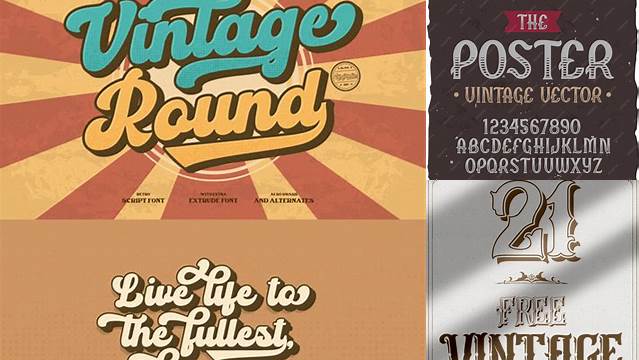
Free Vintage Poster Fonts: Download Now!
Hey guys! Are you on the hunt for some awesome free vintage poster fonts? You've come to the right place! We all know that the right font can make or break a design, especially when you're aiming for that classic, retro vibe. In this article, we're diving deep into the world of vintage poster fonts, exploring everything from where to find them to how to use them effectively. So, buckle up and let's get started!
1. What are Vintage Poster Fonts?
Vintage poster fonts, simply put, are typefaces that evoke a sense of nostalgia and the aesthetic of past eras. Think about the bold, eye-catching fonts used in old movie posters, advertisements, and even product labels from the early to mid-20th century. These fonts often feature unique characteristics like serifs, strong letterforms, and a distinct personality that sets them apart from more modern typefaces. The charm of vintage poster fonts lies in their ability to instantly transport your designs back in time, giving them a timeless and authentic feel. Whether you're working on a poster, a logo, or any design project that needs a touch of retro flair, understanding what defines a vintage poster font is the first step in making the right choice.
These fonts are not just about looking old; they're about telling a story. They carry with them the weight of history, the echoes of past design trends, and the spirit of the eras they represent. When you use a vintage poster font, you're not just choosing a typeface; you're choosing a piece of visual history. This is why they are so effective in creating designs that resonate with audiences on an emotional level, connecting them to a sense of nostalgia and familiarity. The best vintage fonts often have a hand-crafted feel, reflecting the pre-digital era when typography was a highly skilled art form.
To truly appreciate the appeal of vintage poster fonts, consider the context in which they were originally used. Many of these fonts were designed for specific purposes, such as grabbing attention from a distance or conveying a particular mood or message. This means that each font has its own unique personality and strengths, making it crucial to choose the right one for your project. For example, a bold, sans-serif font might be perfect for a vintage-style movie poster, while a more elegant, serif font might be better suited for a retro-inspired wedding invitation. Understanding these nuances will help you use vintage poster fonts effectively and create designs that truly stand out.
2. Why Use Free Vintage Poster Fonts?
Why should you even bother with free vintage poster fonts? Well, for starters, they add a unique and timeless aesthetic to your designs. In a world saturated with modern, sleek fonts, vintage typefaces offer a refreshing contrast. They instantly inject character and personality, making your work stand out from the crowd. Plus, let's be honest, who doesn't love a good dose of nostalgia? Vintage fonts have a way of connecting with people on an emotional level, evoking feelings of familiarity and warmth. But beyond aesthetics, there are practical reasons to use free options. They're cost-effective, especially if you're on a tight budget. And the internet is brimming with high-quality free vintage fonts, so you don't have to compromise on style.
Another compelling reason to use free vintage poster fonts is the sheer variety available. You can find fonts that mimic everything from the Art Deco era to mid-century modern designs. This diversity allows you to experiment with different styles and find the perfect fit for your project. Whether you're designing a poster, a logo, or even a website, a vintage font can add that special touch that elevates your work. The key is to choose a font that not only looks good but also aligns with the overall message and tone of your design. A well-chosen vintage font can communicate your brand's history, values, and personality in a subtle yet powerful way.
Moreover, using free resources can be a fantastic way to hone your design skills. With so many options at your fingertips, you can try out different combinations and learn what works best. This experimentation can lead to unexpected discoveries and help you develop your own unique style. Remember, design is all about pushing boundaries and trying new things, and free vintage poster fonts provide the perfect playground for creative exploration. Just be sure to always check the licensing terms before using any font, ensuring it's suitable for your intended purpose. This will save you from potential legal headaches down the road and allow you to use your fonts with confidence.
3. Where to Find Free Vintage Poster Fonts Online
The internet is a treasure trove when it comes to finding free vintage poster fonts. But with so many websites out there, it can be overwhelming to know where to start. Some popular resources include Font Squirrel, which offers a curated selection of high-quality fonts that are free for commercial use. DaFont is another go-to, with a massive library of fonts, including plenty of vintage options. Google Fonts is also a fantastic resource, especially if you're looking for fonts that are web-friendly. And don't forget about sites like Behance and Dribbble, where designers often share their own creations, including free fonts. The key is to explore different sites and use keywords like "vintage," "retro," and "classic" in your searches to narrow down your options.
When searching for free vintage poster fonts, it's important to keep in mind the licensing terms. Not all fonts are free for commercial use, so always double-check the fine print before incorporating a font into your project. Most websites will clearly state the licensing information, but it's always better to be safe than sorry. Another tip is to read reviews and comments from other users. This can give you valuable insights into the quality and usability of a font. A font might look great in the preview image, but it's always good to know if others have had a positive experience using it in real-world projects. Pay attention to details like readability, kerning, and overall aesthetic appeal.
Finally, don't be afraid to dig a little deeper and explore niche websites and design blogs. Many independent designers and foundries offer free vintage poster fonts as a way to promote their work. These hidden gems can often provide unique and distinctive fonts that you won't find anywhere else. You can also join online design communities and forums, where members often share their favorite resources and recommendations. Networking with other designers can be a great way to discover new fonts and expand your creative toolkit. Remember, the best way to find the perfect vintage font is to be patient, persistent, and willing to explore all the options available to you.
4. Top Websites for Free Vintage Fonts
Let's dive a little deeper into some of the top websites for free vintage fonts, shall we? As mentioned before, Font Squirrel is a fantastic resource. They pride themselves on offering fonts that are 100% free for commercial use, which is a huge plus. Their selection is carefully curated, so you can trust that you're getting high-quality typefaces. DaFont, on the other hand, is a behemoth, with thousands of fonts to choose from. While not all fonts on DaFont are free for commercial use, there's still a vast collection of vintage options available. Google Fonts is another winner, especially if you're working on web projects. Their fonts are optimized for the web and easy to embed in your website.
Another great website to explore is Behance. While it's primarily a platform for designers to showcase their work, many designers also offer free vintage poster fonts as a way to give back to the community. You can often find unique and original fonts on Behance that you won't find anywhere else. Dribbble is another similar platform, where designers share their creations and resources. Creative Market is also worth checking out, although it's primarily a marketplace for premium fonts and design assets, they often have freebies available, including vintage fonts. Sign up for their newsletter to stay informed about their latest free offerings. The key is to diversify your search and explore multiple websites to find the perfect font for your project.
In addition to these popular websites, there are also many smaller, niche sites that specialize in vintage fonts. Websites like MyFonts and HypeForType often have curated collections of free vintage poster fonts, although they also offer premium options. These sites can be a great way to discover hidden gems and unique typefaces that you won't find on the larger platforms. Remember, the best approach is to be thorough and persistent in your search. Don't settle for the first font you find; take the time to explore different options and find the one that truly captures the essence of your design. And always, always double-check the licensing terms before using a font in a commercial project.
5. Popular Free Vintage Poster Fonts You Should Know
Okay, so now you know where to find free vintage poster fonts, but what about which ones to look for? There are some real classics out there that every designer should have in their toolkit. One popular choice is Bebas Neue, a clean and versatile sans-serif font that works well for headlines and posters. Another favorite is Oswald, a condensed sans-serif that has a slightly vintage feel. For something with a bit more character, check out Montserrat, a geometric sans-serif that's inspired by early 20th-century urban typography. And if you're looking for a good serif option, Playfair Display is a beautiful choice, with its elegant letterforms and classic feel.
In addition to these well-known fonts, there are also many hidden gems to discover. Consider fonts like League Gothic, a bold and impactful sans-serif that's perfect for vintage-style posters and advertisements. Another standout is Raleway, an elegant sans-serif with a distinctive "W" that adds a touch of sophistication. For a more playful and whimsical feel, try Pacifico, a script font that evokes the spirit of 1950s surf culture. And if you're looking for a font with a hand-drawn feel, check out Amatic SC, a condensed sans-serif that's perfect for adding a personal touch to your designs. These popular free vintage poster fonts offer a great starting point for your vintage design projects.
When choosing a free vintage poster font, it's important to consider the overall style and message you want to convey. A bold and impactful font like League Gothic might be perfect for a vintage-style movie poster, while a more elegant font like Playfair Display might be better suited for a retro-inspired wedding invitation. Think about the era you're trying to evoke and choose a font that aligns with that aesthetic. Experiment with different combinations and don't be afraid to try something new. The best way to find the perfect font is to play around and see what works best for your project. And remember, the most important thing is to choose a font that you love and that inspires you.
6. How to Identify a True Vintage Font
So, how do you actually spot a true vintage font? It's not always as simple as slapping the "vintage" label on any old typeface. True vintage fonts often have specific characteristics that set them apart. Look for details like strong serifs, unique letterforms, and a handcrafted feel. Fonts from the Art Deco era, for example, tend to be geometric and stylized, while fonts from the mid-century modern period often have a clean and minimalist aesthetic. Consider the overall weight and spacing of the letters. Vintage fonts often have a heavier weight and tighter spacing than modern fonts, giving them a bold and impactful appearance.
Another key characteristic of true vintage fonts is their unique personality. Many vintage fonts were designed for specific purposes, such as advertising or signage, and they often reflect the design trends and cultural influences of their time. For example, fonts used in 1950s advertisements often have a playful and whimsical feel, while fonts used in early 20th-century posters tend to be more formal and traditional. Pay attention to the details that make a font unique, such as the shape of the serifs, the curvature of the letterforms, and the overall balance and harmony of the design. These subtle nuances can make all the difference in creating an authentic vintage look.
To identify a true vintage font, it's also helpful to study the history of typography. Familiarize yourself with the different design movements and styles that were popular in the past, such as Art Nouveau, Art Deco, and the mid-century modern aesthetic. This knowledge will give you a better understanding of the characteristics that define vintage fonts and help you distinguish them from more modern typefaces. Look at examples of vintage posters, advertisements, and other design materials to see how fonts were used in the past. This visual research will help you develop your eye for vintage typography and make informed decisions when choosing fonts for your projects. And remember, the best way to learn is to practice. Experiment with different fonts and see how they look in different contexts. Over time, you'll develop a keen sense for what makes a font truly vintage.
7. Understanding Font Licensing for Free Fonts
Okay, this is super important, guys. Before you use any free font, you must understand font licensing. Just because a font is free to download doesn't mean you can use it for anything you want. Most free fonts come with some sort of license that dictates how you can use them. Some fonts are free for personal use only, meaning you can use them for your own projects but not for commercial work. Others are free for commercial use, but with certain restrictions, such as needing to credit the designer or being limited to a certain number of users. Always, always read the license agreement before using a font to avoid any legal trouble.
Understanding font licensing for free fonts is crucial for protecting yourself and the font designer. Font designers put a lot of time and effort into creating typefaces, and licensing agreements are a way for them to control how their work is used. By respecting these licenses, you're not only staying on the right side of the law but also supporting the design community. The most common types of font licenses include personal use licenses, commercial use licenses, and open-source licenses. Personal use licenses typically allow you to use the font for non-profit projects, such as personal blogs or school assignments. Commercial use licenses allow you to use the font for business purposes, such as logos, marketing materials, and products for sale. Open-source licenses often grant the broadest rights, allowing you to use, modify, and distribute the font freely.
When you download a free vintage poster font, the license information is usually included in a separate text file or on the font designer's website. Take the time to read this information carefully and make sure you understand the terms and conditions. If you're unsure about anything, it's always best to contact the designer directly for clarification. Some fonts may have specific restrictions, such as limitations on embedding them in digital documents or using them in broadcast media. By being proactive and informed about font licensing, you can ensure that you're using fonts legally and ethically, and you can focus on creating amazing designs without worrying about potential legal issues. And remember, when in doubt, it's always better to err on the side of caution and seek professional advice if needed.
8. Pairing Free Vintage Fonts Effectively
Pairing fonts is an art, guys! And when it comes to free vintage fonts, it's even more crucial to get it right. You want to create a cohesive and visually appealing design, not a jumbled mess. A good rule of thumb is to pair a bold, attention-grabbing font (like a vintage sans-serif) with a more subtle and readable font (like a classic serif). This creates a nice contrast that's easy on the eyes. Also, consider the era you're trying to evoke. Fonts from the same period often pair well together. But don't be afraid to experiment! Sometimes the most unexpected combinations can be the most effective.
Pairing free vintage fonts effectively is about creating visual harmony and balance in your design. Think of fonts as personalities – some are bold and outgoing, while others are quiet and reserved. The key is to find fonts that complement each other and work together to convey your message. A common strategy is to pair a display font, which is used for headlines and titles, with a body font, which is used for paragraphs and longer text. Display fonts are often more decorative and eye-catching, while body fonts are designed for readability and legibility. When choosing fonts to pair, consider their weight, style, and overall personality. A bold, heavy font might pair well with a lighter, more delicate font, creating a contrast that draws the eye.
Another important aspect of pairing free vintage fonts is consistency. Try to limit the number of fonts you use in a single design to two or three at most. Using too many fonts can create a cluttered and confusing look. Choose fonts that share similar characteristics, such as stroke weight or letterform style. This will help create a cohesive and unified design. It's also helpful to consider the context in which the fonts will be used. A font pairing that works well for a vintage poster might not be suitable for a website or a business card. Think about the overall tone and message of your design and choose fonts that align with that aesthetic. And remember, the best way to learn is to experiment. Try out different combinations and see what works best for your project. Don't be afraid to break the rules and try something new. The most important thing is to create a design that is visually appealing and communicates your message effectively.
9. Using Vintage Fonts in Modern Designs
Vintage fonts aren't just for retro designs! They can also add a unique touch to modern projects. The key is to use them sparingly and thoughtfully. A vintage font can be a great way to add character and personality to a modern logo or website. But be careful not to overdo it. Too much vintage can make your design look dated rather than timeless. Try using a vintage font for headlines or titles, and pair it with a clean, modern sans-serif for body text. This creates a nice balance between the old and the new.
Using vintage fonts in modern designs is a powerful way to create a unique and memorable aesthetic. The contrast between vintage and modern elements can add depth and complexity to your design, making it stand out from the crowd. Think about how you can incorporate vintage fonts into your overall design concept. Perhaps you can use a vintage font for your logo and then pair it with a modern sans-serif for your website. Or maybe you can use a vintage font for your headlines and a clean, minimalist font for your body text. The key is to find the right balance and create a cohesive and harmonious design.
Another approach to using vintage fonts in modern designs is to use them in unexpected ways. For example, you could use a vintage script font for a modern branding project or a vintage sans-serif font for a tech-related website. The unexpected juxtaposition of vintage and modern elements can create a sense of surprise and intrigue, capturing the attention of your audience. It's also important to consider the context in which the fonts will be used. A vintage font that works well for a poster might not be suitable for a website or a mobile app. Think about the overall user experience and choose fonts that are both visually appealing and legible. And remember, the best way to learn is to experiment. Try out different combinations and see what works best for your project. Don't be afraid to push the boundaries and explore new possibilities. The goal is to create a design that is both timeless and contemporary, showcasing the best of both worlds.
10. The Psychology of Vintage Fonts
Did you know fonts can actually evoke emotions? It's true! The psychology of fonts is a fascinating field, and vintage fonts are particularly powerful in this regard. They tap into our collective memory and nostalgia, bringing back feelings of warmth, familiarity, and even a sense of longing for the past. When you use a vintage font, you're not just choosing a typeface; you're choosing a feeling. This is why vintage fonts are so effective for branding and marketing. They can help create an emotional connection with your audience, making your message more memorable and impactful.
Understanding the psychology of vintage fonts can help you make more informed design decisions. Different vintage fonts evoke different emotions and associations. For example, fonts from the Art Deco era often convey a sense of glamour, sophistication, and elegance, while fonts from the mid-century modern period tend to evoke feelings of optimism, playfulness, and nostalgia. Consider the emotions you want to evoke in your audience and choose fonts that align with those feelings. A vintage font can be a powerful tool for storytelling, helping you create a narrative that resonates with your audience on an emotional level.
Another important aspect of the psychology of vintage fonts is their ability to create a sense of authenticity and credibility. In a world saturated with digital information, vintage fonts can help your design stand out and convey a sense of heritage and craftsmanship. This can be particularly effective for businesses that want to project a sense of tradition and expertise. When used thoughtfully, vintage fonts can help you build trust and credibility with your audience. However, it's important to use them sparingly and in the right context. Overusing vintage fonts or using them inappropriately can make your design look dated and out of touch. The key is to find the right balance and use vintage fonts strategically to enhance your overall message and brand identity. And remember, the best way to learn is to experiment and see how different fonts make you and your audience feel.
11. Vintage Fonts for Logos
12. Vintage Fonts for Posters
13. Vintage Fonts for Websites
14. Vintage Fonts for Branding
15. Vintage Fonts for Packaging
16. Vintage Fonts for Print
17. Vintage Script Fonts
18. Vintage Serif Fonts
19. Vintage Sans-Serif Fonts
20. Art Deco Fonts
21. Mid-Century Modern Fonts
22. Victorian Fonts
23. Retro Fonts
24. Distressed Fonts
25. Handwritten Fonts
26. Calligraphy Fonts
27. The Future of Vintage Fonts in Design
28. Common Mistakes to Avoid When Using Vintage Fonts
29. Tips for Choosing the Right Vintage Font
30. Resources for Learning More About Vintage Typography